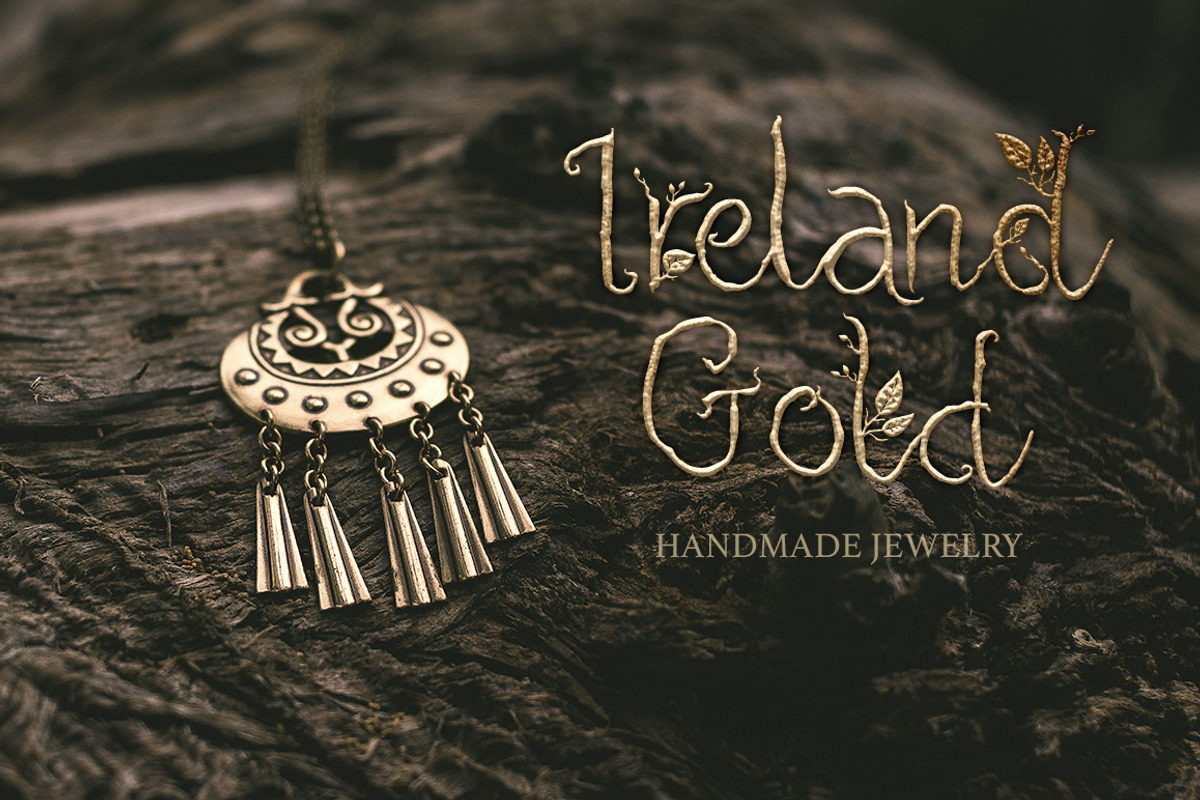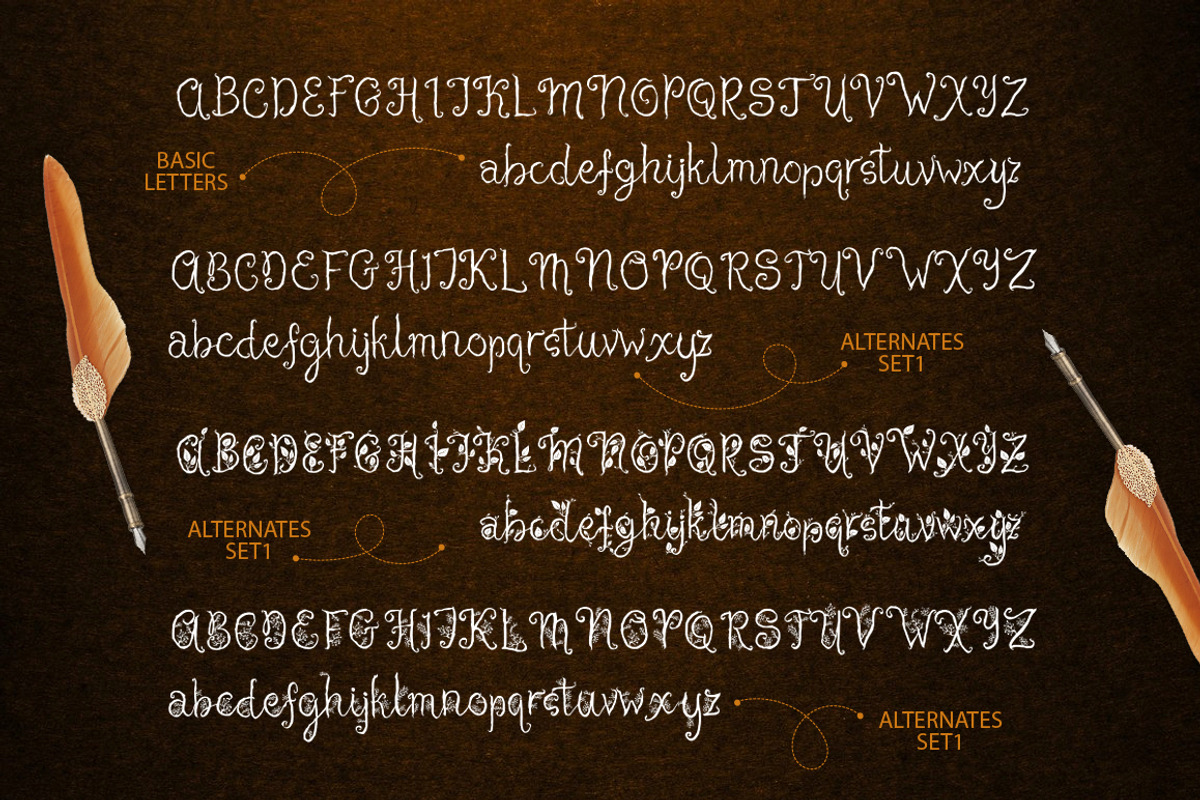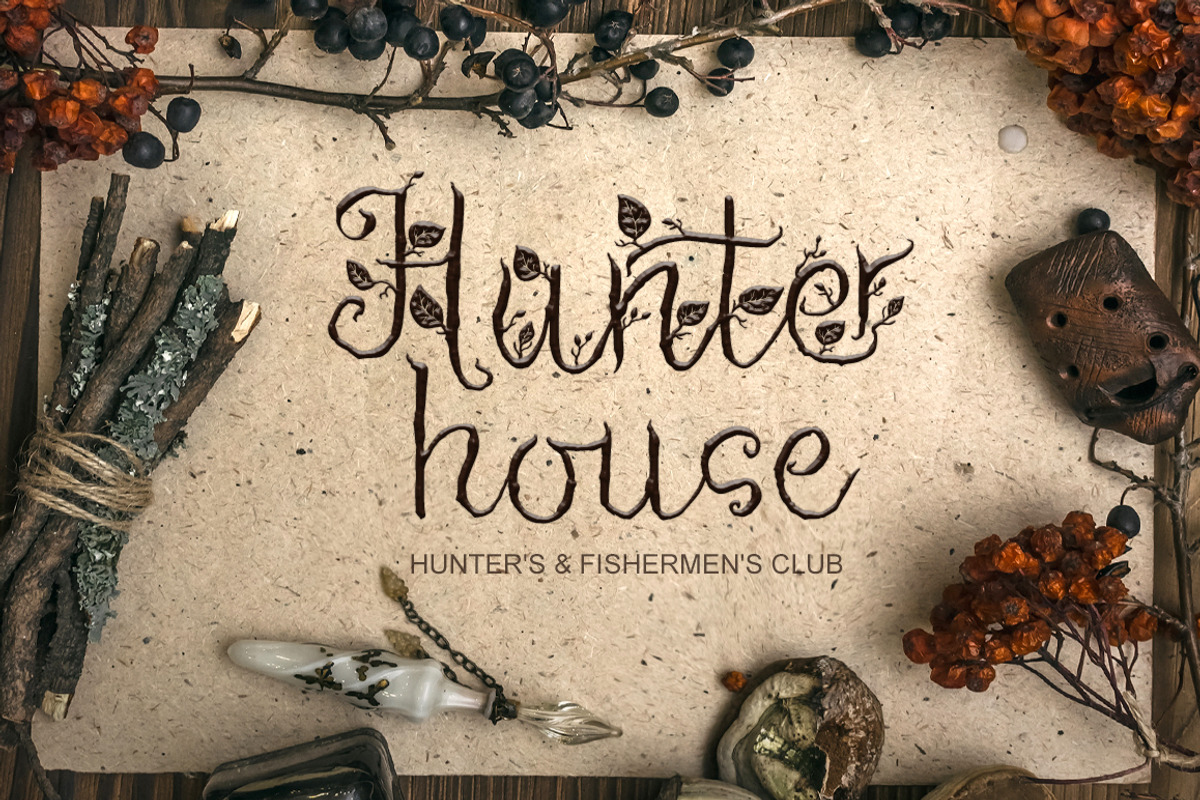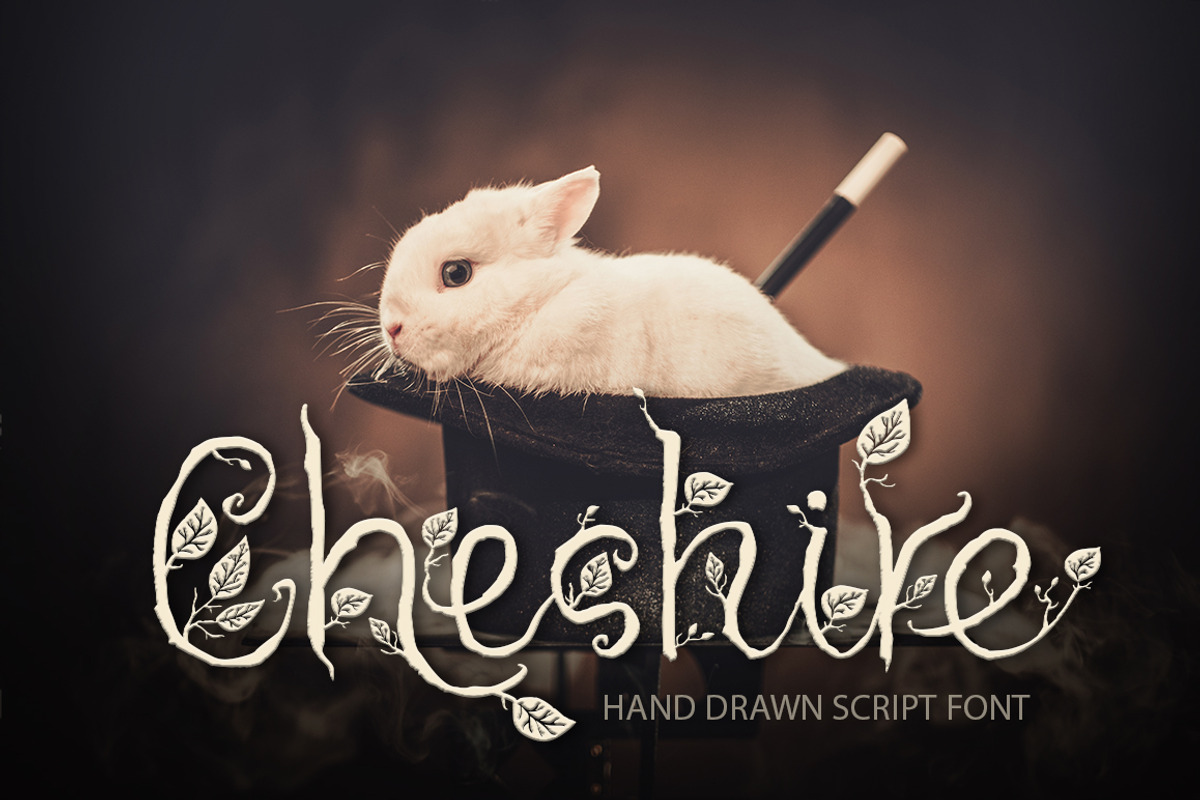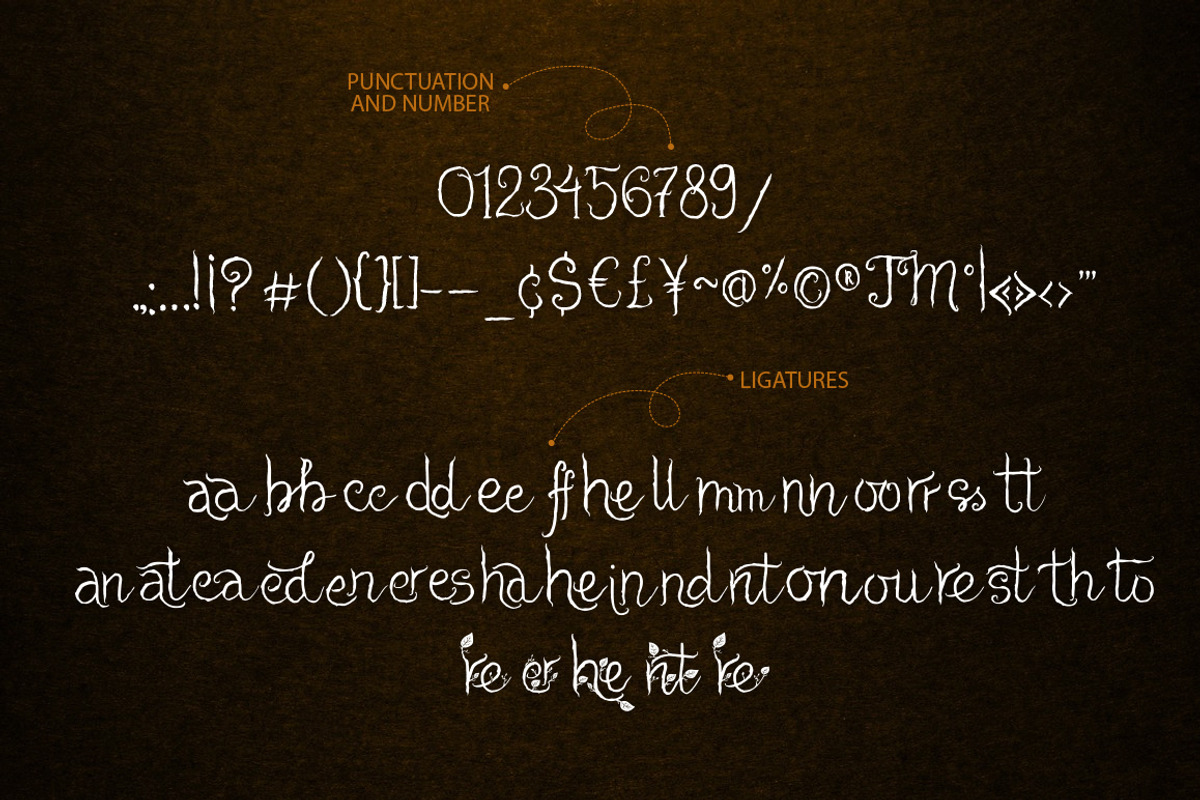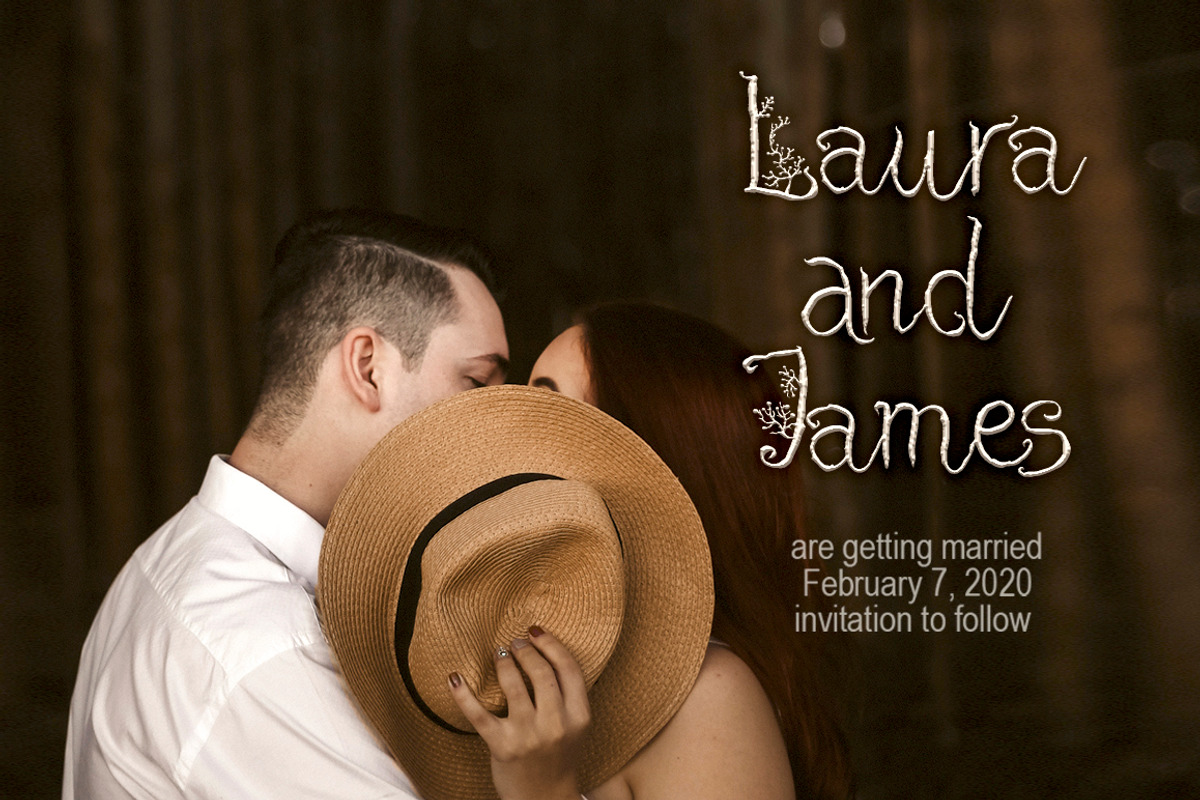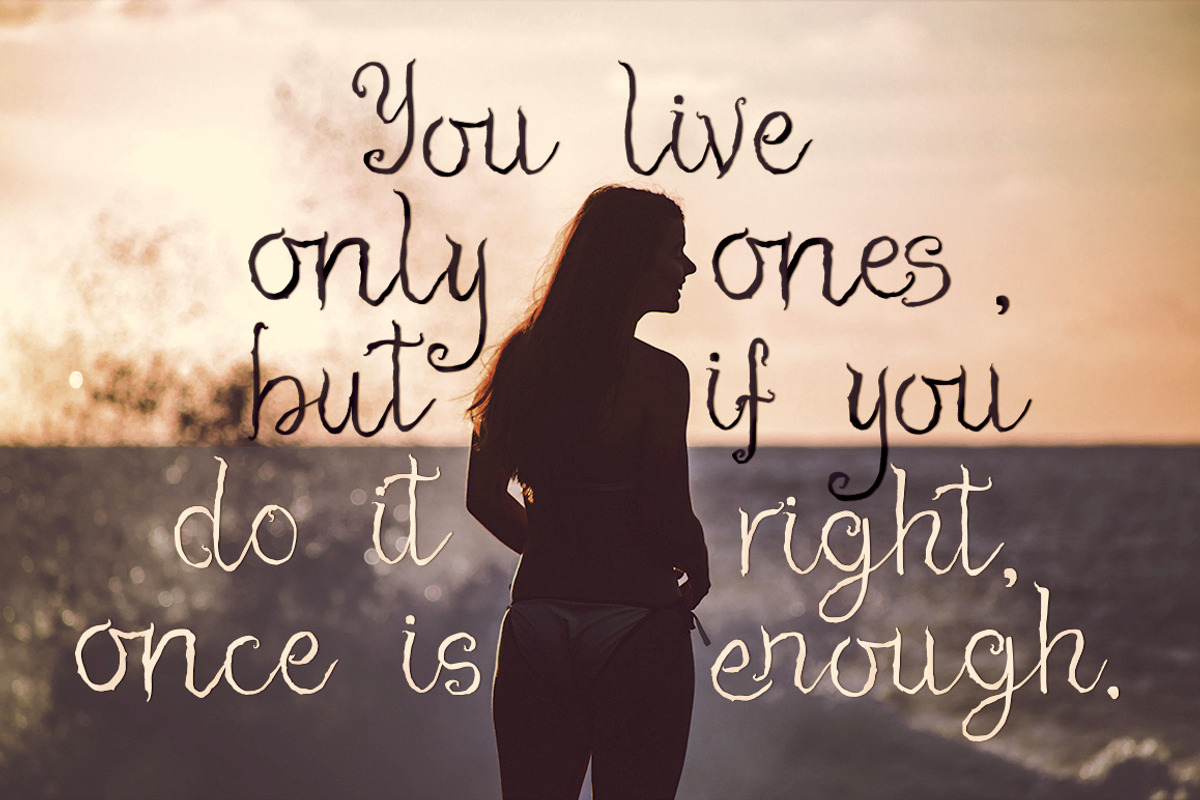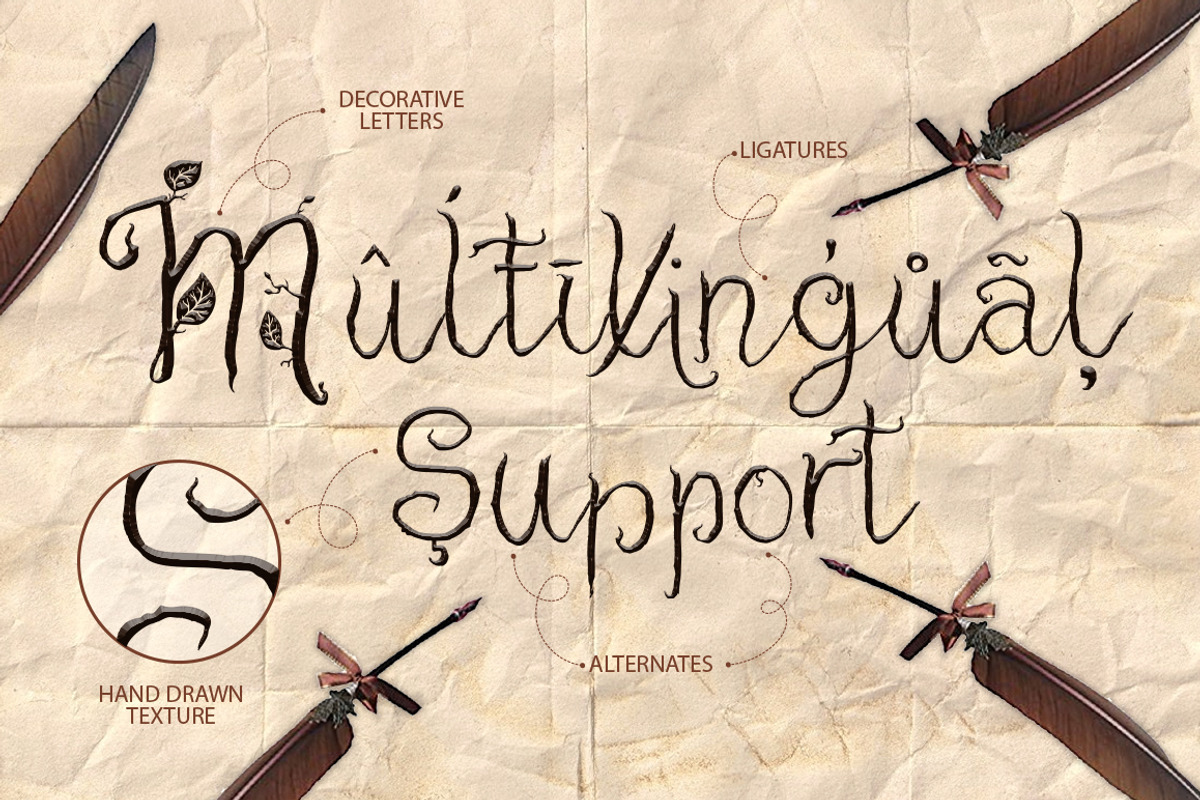
Cheshire. Magic script font.
Introducing Cheshire!
Cheshire is a beautiful script magic font with handdrawn texture, lots of ligatures and 3 alternate set for the whole alphabet.
Goodlooking and creative, it was created for beautiful typographic projects, amazing designs, like greeting cards, t-shirts, posters, mugs, branding materials, photography overlays and so much more!
3 variants of alternate letters for the uppercase and for the lowercase, make this font an unique tool for creating amazing handdrawn texts, richly decorated with floral elements.